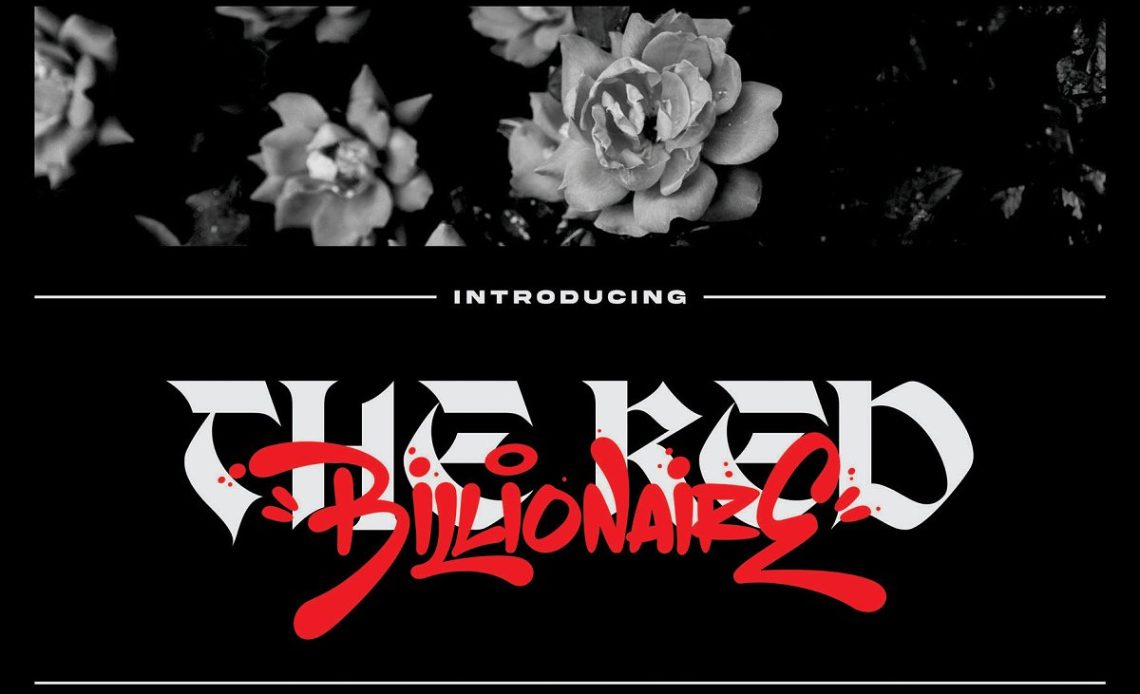
Introducing The Red Billionaire, the ultimate font duo designed to take your creativity to new heights. Created by the talented Rifqi Triana, this blackletter font family is a game-changer in the world of typography. Whether you're a musician, designer, or simply a lover of beautiful fonts, The Red Billionaire is the perfect choice to make your projects stand out.
At an irresistible intro sale price of just $15, this font duo is a steal. But what makes The Red Billionaire truly special? Let's dive into its remarkable features. With a full set of capital and lowercase letters, this font offers endless possibilities for creating stunning combinations. The inclusion of multi-lingual support, currency figures, numerals, punctuation, and extra glyphs ensures that your designs will be truly versatile and globally appealing.
Imagine the impact The Red Billionaire can have on your branding. Whether it's a logo, greeting card, stationery design, or invitation, this font will add a touch of elegance and sophistication. Looking to create eye-catching apparel or packaging designs? The Red Billionaire has got you covered. Its artistic flair and attention to detail make it the perfect choice for posters and typographic designs that demand attention.
But what sets The Red Billionaire apart from other fonts is its ability to evoke emotions and create a connection with your audience. Its blackletter style exudes power, strength, and a sense of grandeur. It's the font for music covers that will captivate your fans and leave a lasting impression.
Unlock your creativity with The Red Billionaire and let your designs speak volumes. It's not just a font, it's a statement. And with the easy-to-follow guides provided, accessing all the stylistic alternates is a breeze.